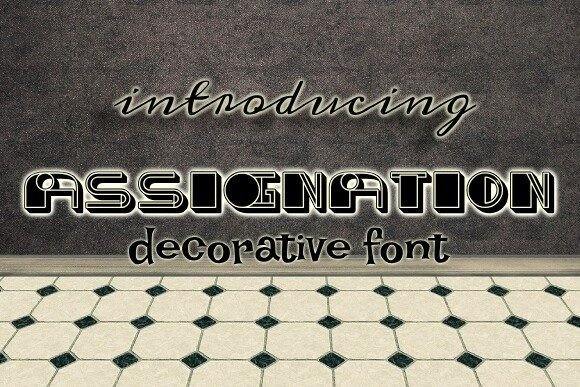
The Quest for the Perfect Font: Discovering Assignation
I’ll never forget the time I was working on a project for a client who wanted a playful, yet elegant font to match their brand’s quirky personality. I spent hours scouring the internet for the perfect typeface, but nothing seemed quite right. That was until I stumbled upon Assignation Font. 💡
This cute decorative typeface has been a game-changer for my designs, and I’m excited to share my experience with you. Whether you’re a designer, crafter, or creative hobbyist, Assignation Font is sure to become a favorite in your collection.
An Honest Review of Assignation Font
• Unique and playful design that’s perfect for posters, flyers, and t-shirts 🎨
• Easy to read, even in smaller sizes 📚
• Supports multiple languages 🌎
• Extensive OpenType features, including glyphs and stylistic alternates 🔍
• May not be suitable for body text or long-form content due to its decorative nature 📖
• Some characters may not work well in very small sizes ⚠️
The Backstory of Assignation Font
Assignation Font was designed with the intention of creating a unique and playful typeface that would add a touch of personality to any design. The designer aimed to craft a font that was both elegant and whimsical, making it perfect for a wide range of creative projects.
Font Name Assignation Font
Author vladimirnikolic
Q: What type of designs is Assignation Font best suited for?
A: Assignation Font is perfect for posters, flyers, t-shirts, and other creative projects that require a playful, yet elegant font.
Q: Does Assignation Font support OpenType features?
A: Yes, Assignation Font supports OpenType features, including glyphs and stylistic alternates, which can add visual interest to your designs.